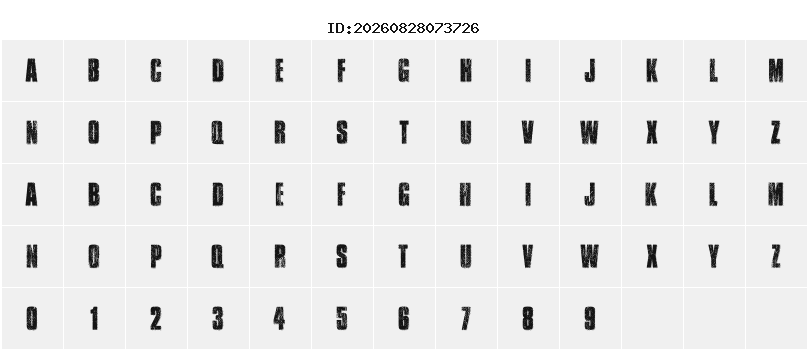
• Font Name: Transit Display
• Designer: Kevin Christopher
About Transit Display.ttf
Transit Display.ttf is a modern, elegant sans-serif font designed for ultimate readability and visual harmony. Perfect for branding, headlines, web design, and print materials.